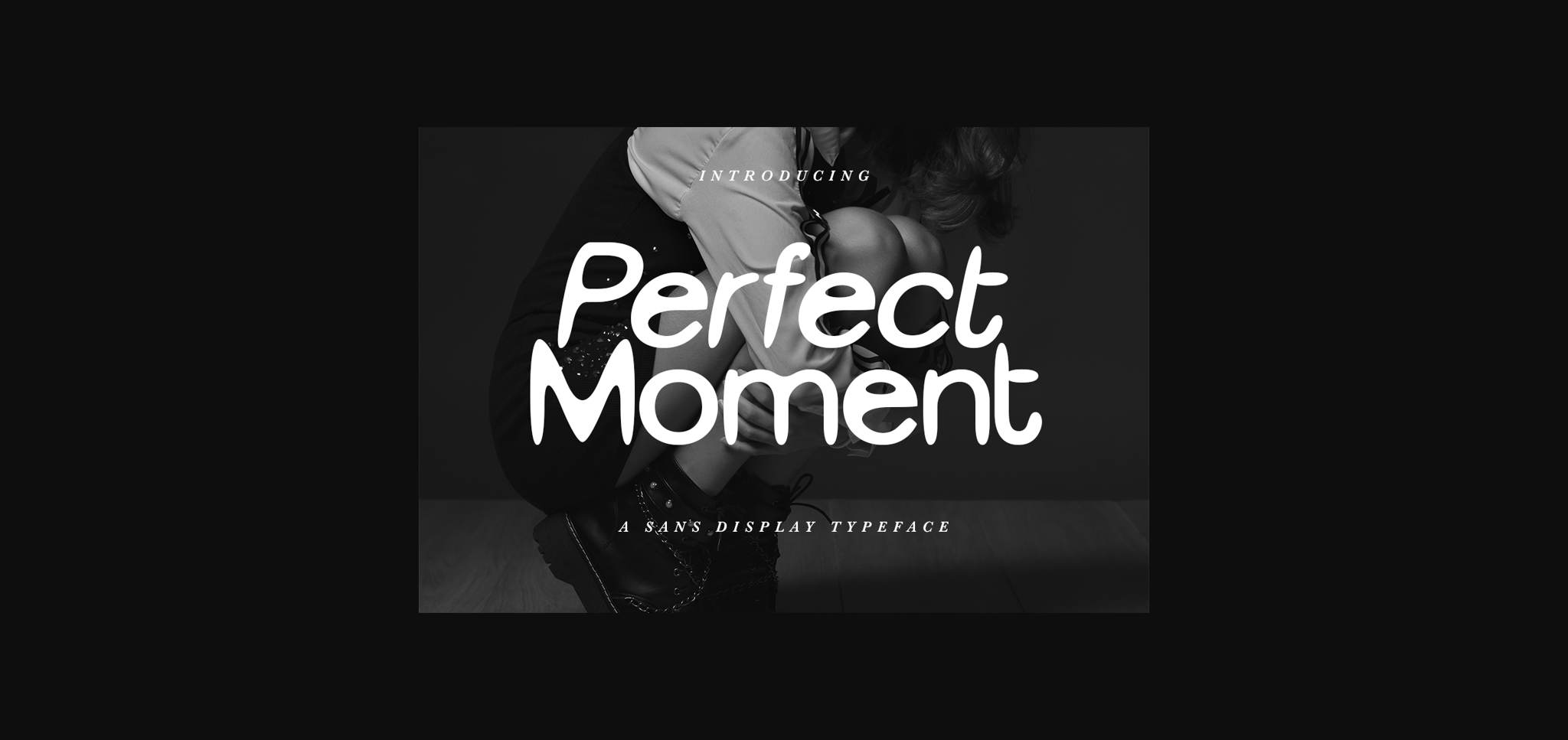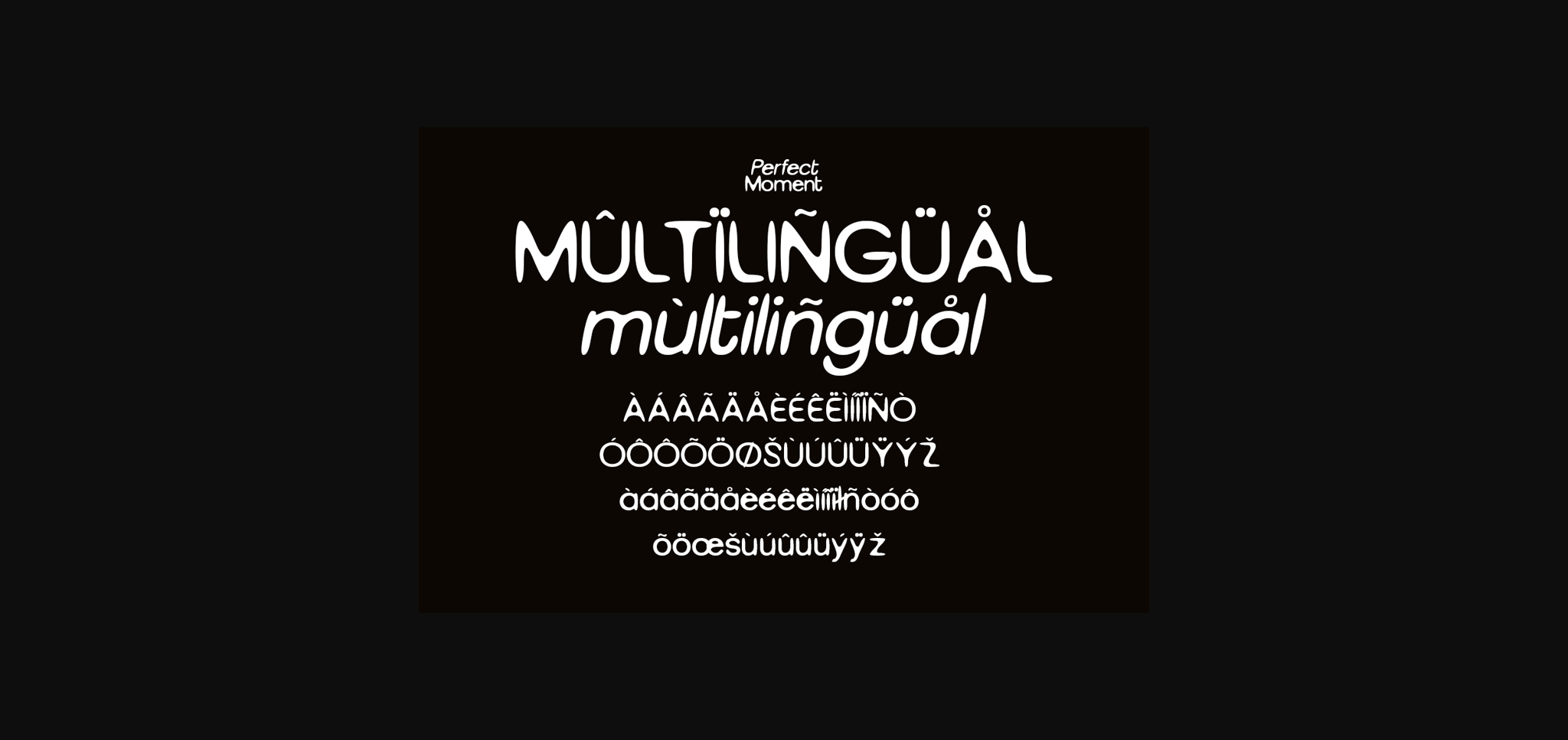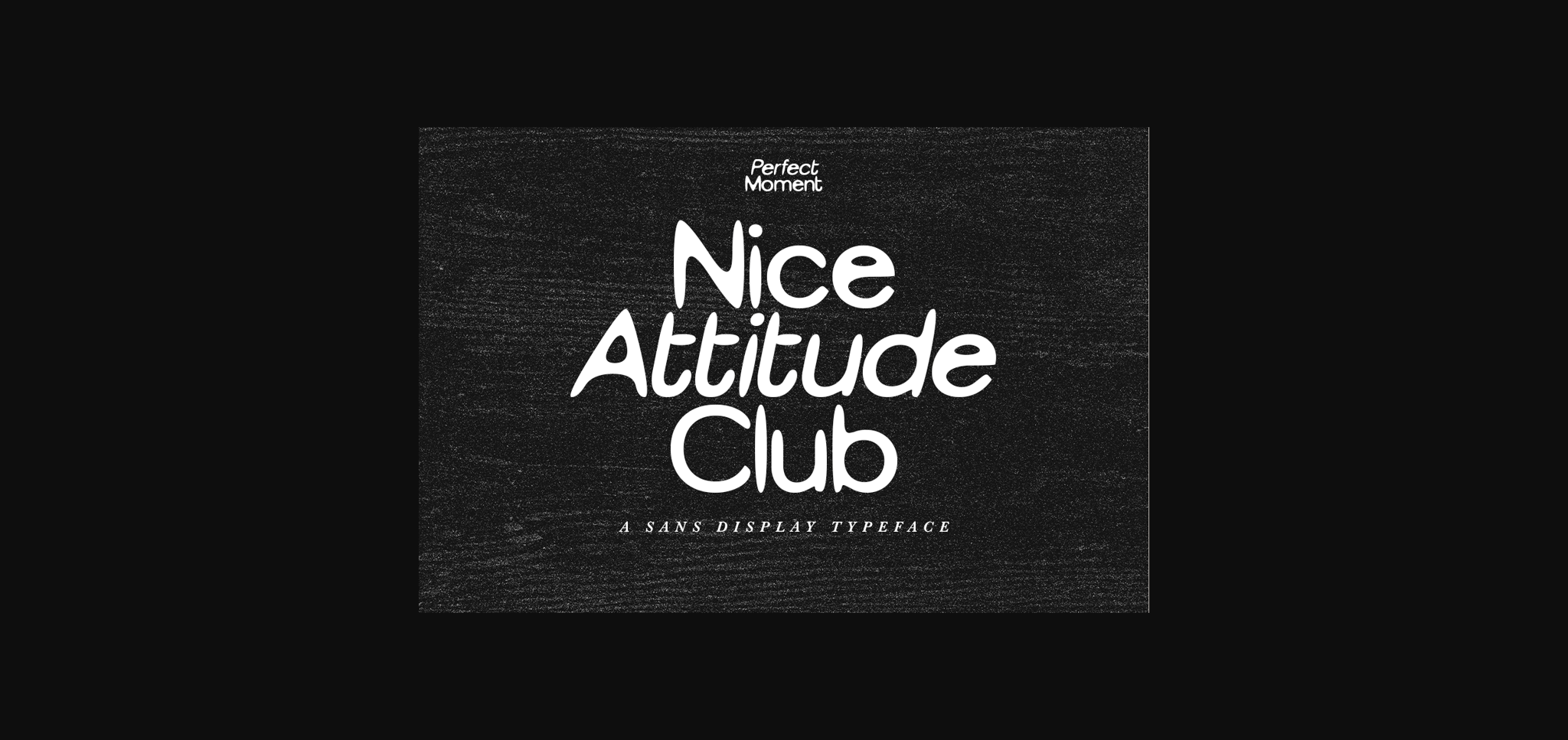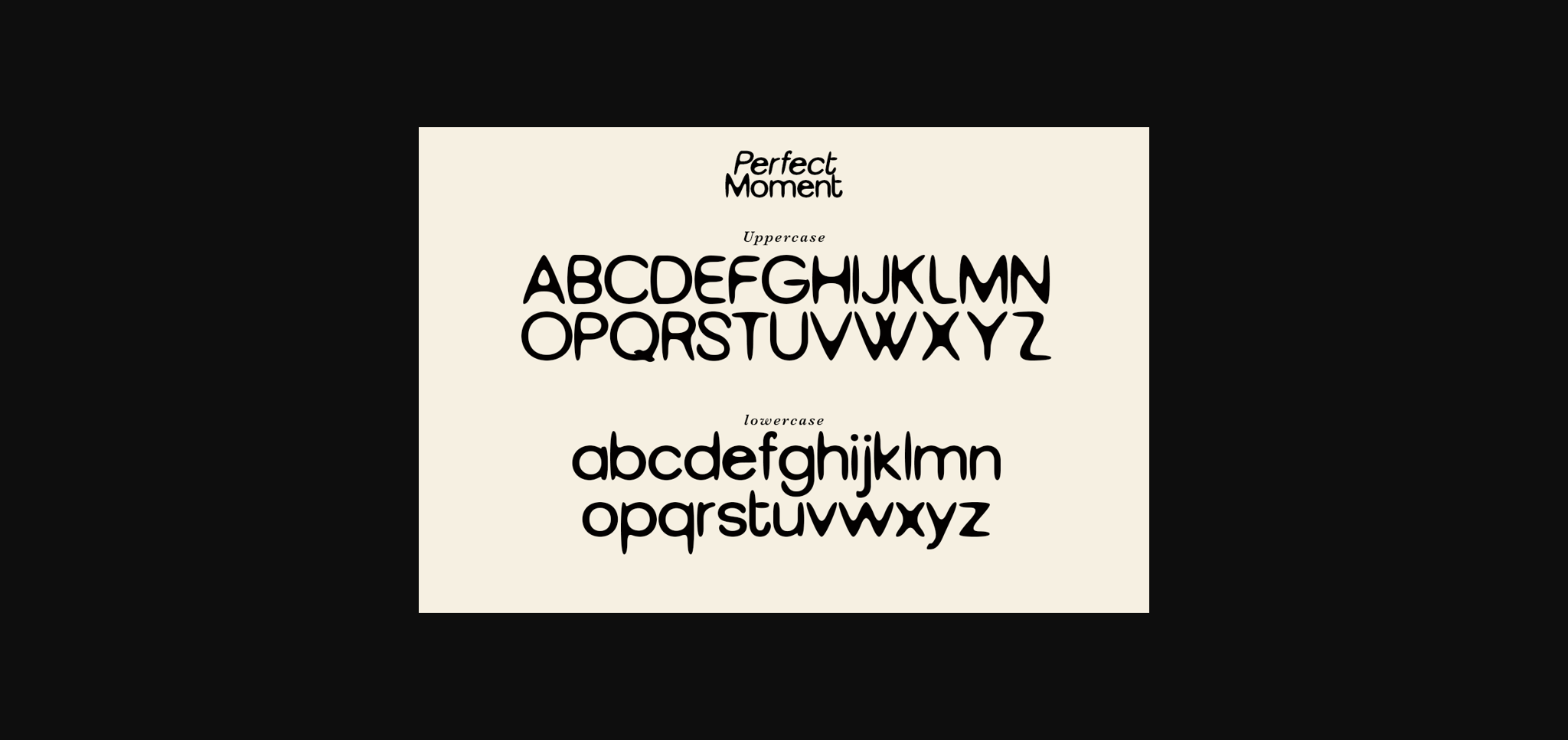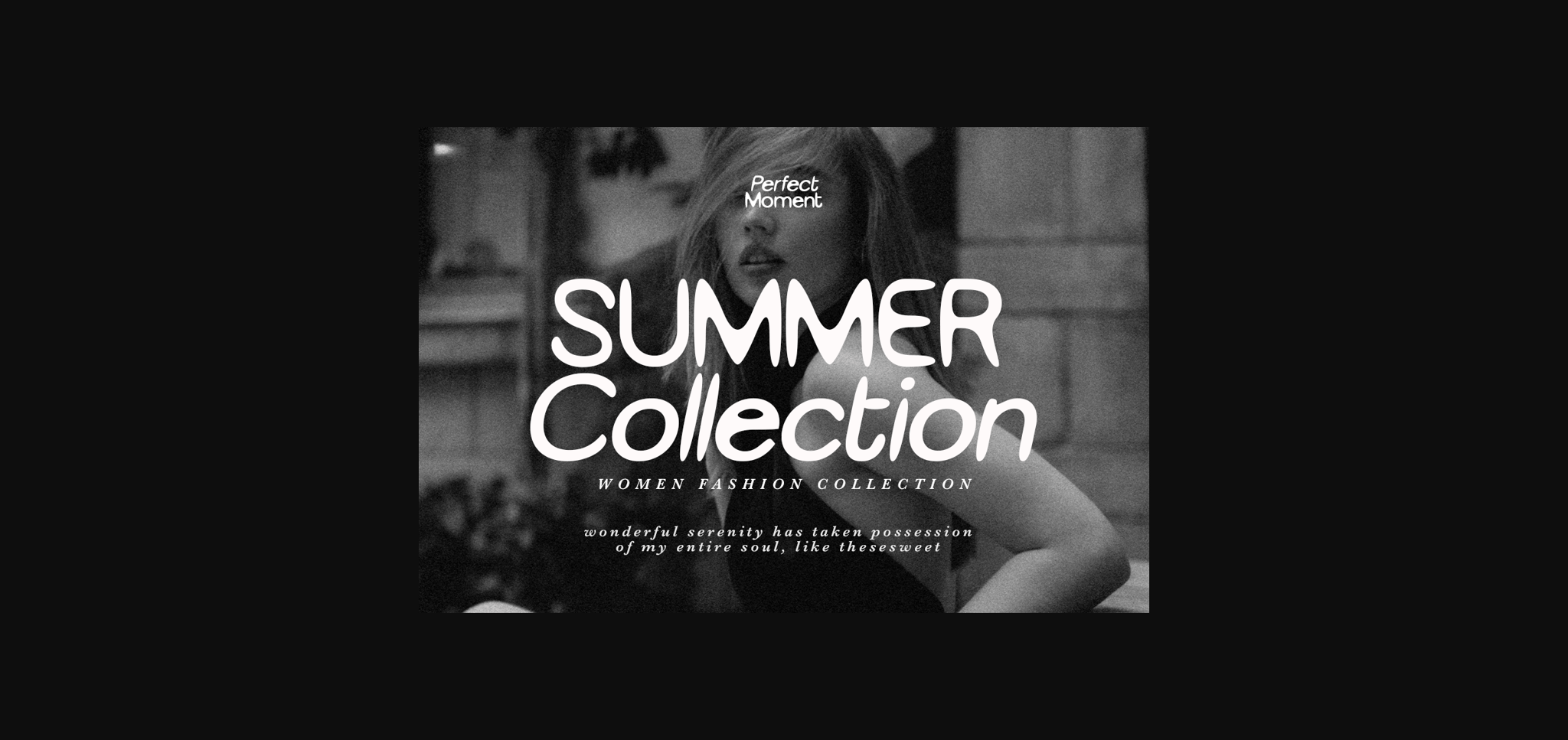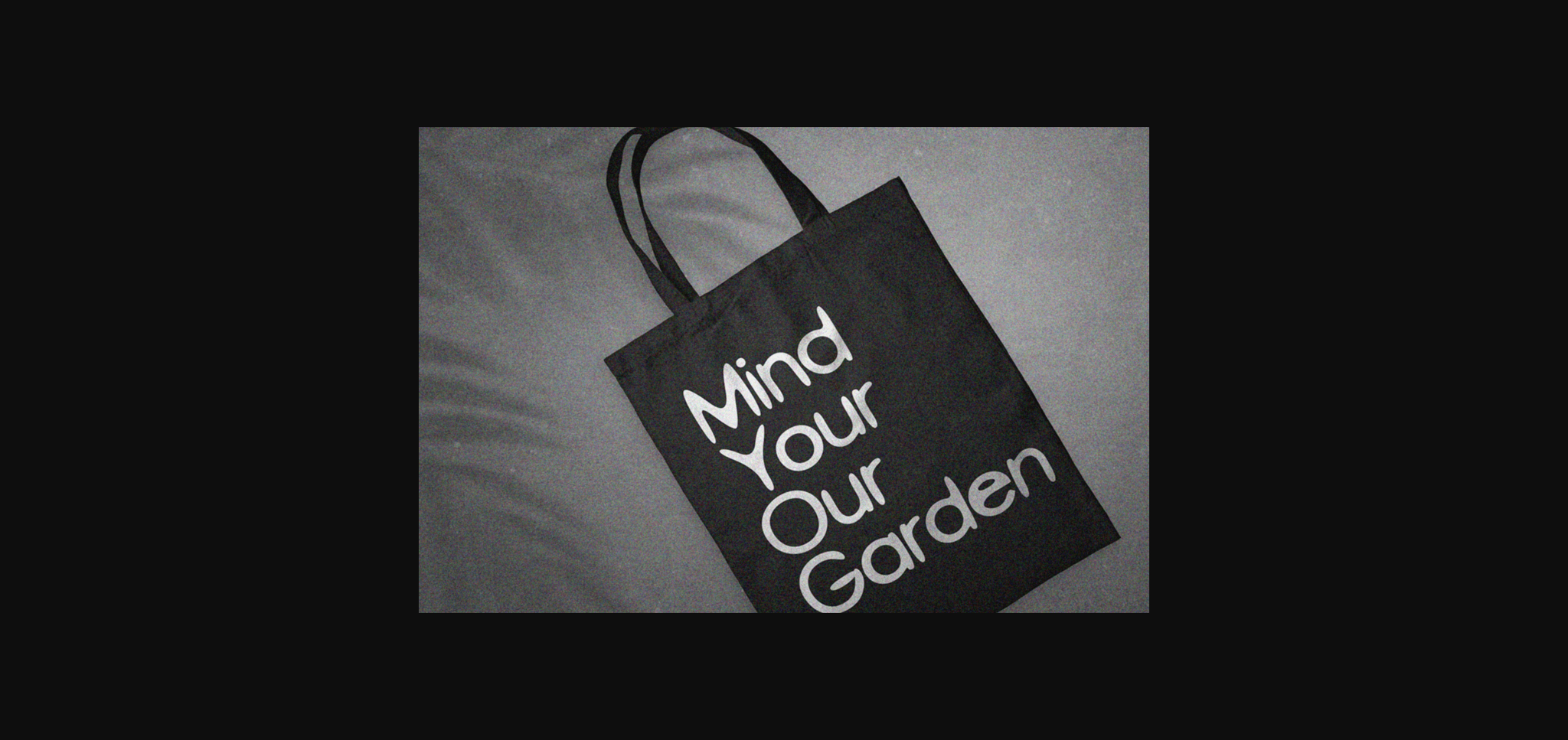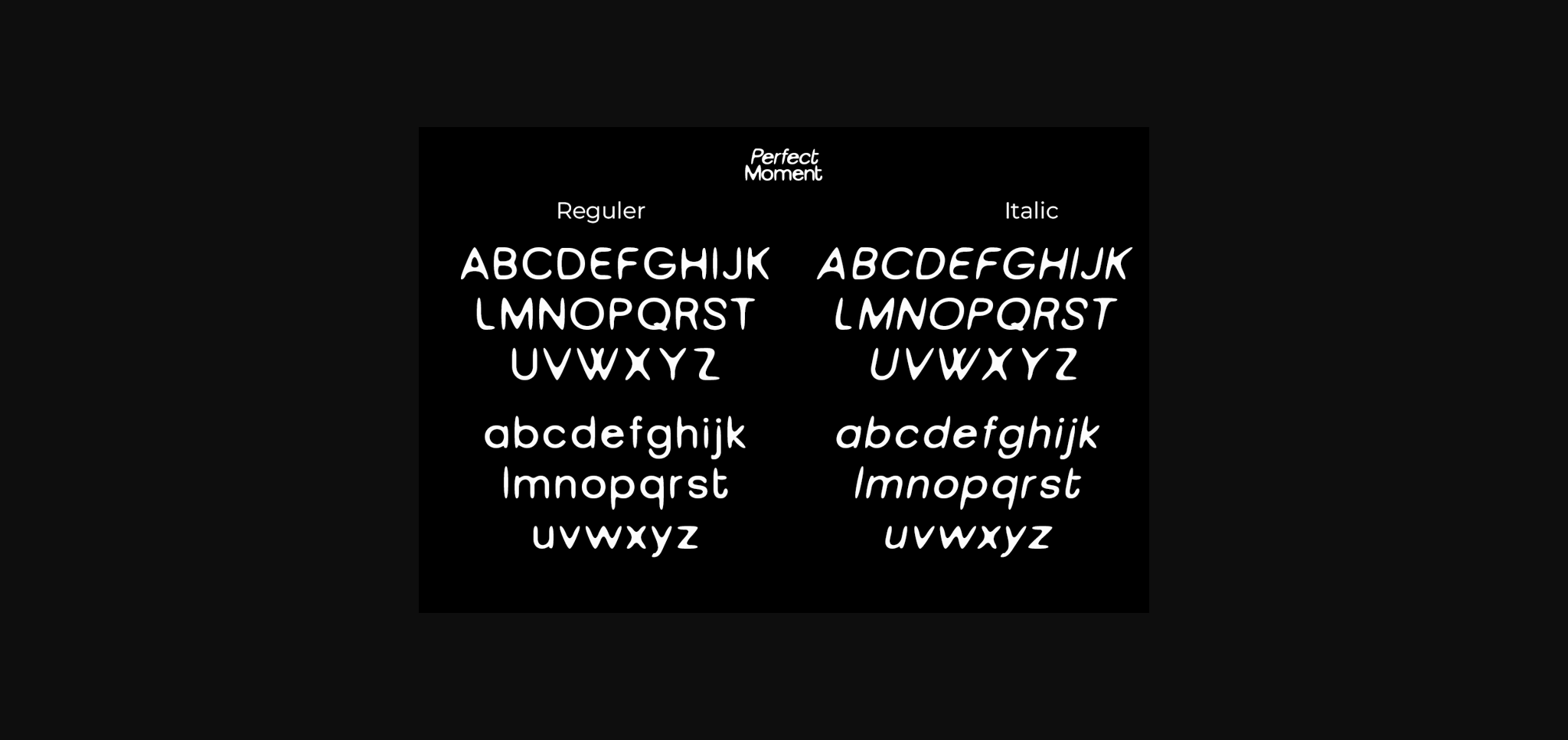
HomeSans Serif FontsPerfect Moment Font Sans Serif Fonts Perfect Moment Font FacebookXPinterestWhatsApp 1 of 9 ... Perfect Moment Font Poster 2... Perfect Moment Font Poster 3... Perfect Moment Font Poster 4... Perfect Moment Font Poster 5... Perfect Moment Font Poster 6... Perfect Moment Font Poster 7... Perfect Moment Font Poster 8... Perfect Moment Font Poster 9... About Perfect Moment Font Perfect Moment is an elegant and stylish sans-serif font. It has beautifully rounded characters and a modern vibe that suits any project! DOWNLOAD NOW People also explored Chouphie Font Mechacore Font Beloved Ottilia Font Hunting Font Garden Rose Font Kehenir Font Palm Frond Good Afternoon Font Dry Bakery 282 0 TagsPerfect Moment Font Previous articleRocklyn FontNext articlePodiefa Font LEAVE A REPLY Cancel reply Comment: Please enter your comment! Name:* Please enter your name here Email:* You have entered an incorrect email address! Please enter your email address here Website: Save my name, email, and website in this browser for the next time I comment. Personal Use Free Welcome Creative Personal Use Free Read more about this font Kaylafiz Personal Use Free Read more about this font Hanberra Personal Use Free Read more about this font Propaniac Personal Use Free Read more about this font BLOG How to Cut Any Font on Cricut: Convert a Font to SVG (Free) Turn any font into a clean SVG so it cuts crisp on Cricut - a quick 3-step workflow using a free font-to-SVG tool. Modern Sans-Serif Fonts That Brands Love in 2025 Top 10 Handwritten Fonts That Elevate Your Designs Free vs Paid Fonts: Why Investing in Premium Fonts Is Worth It